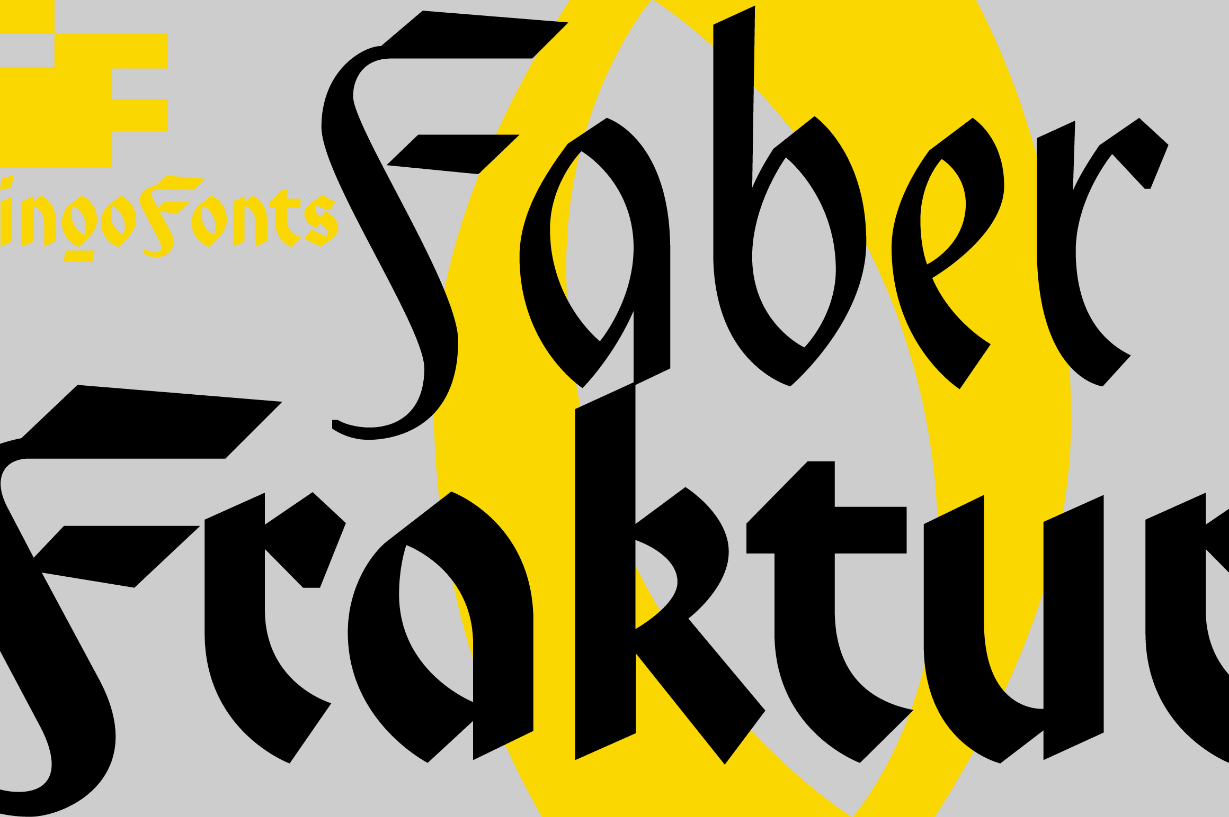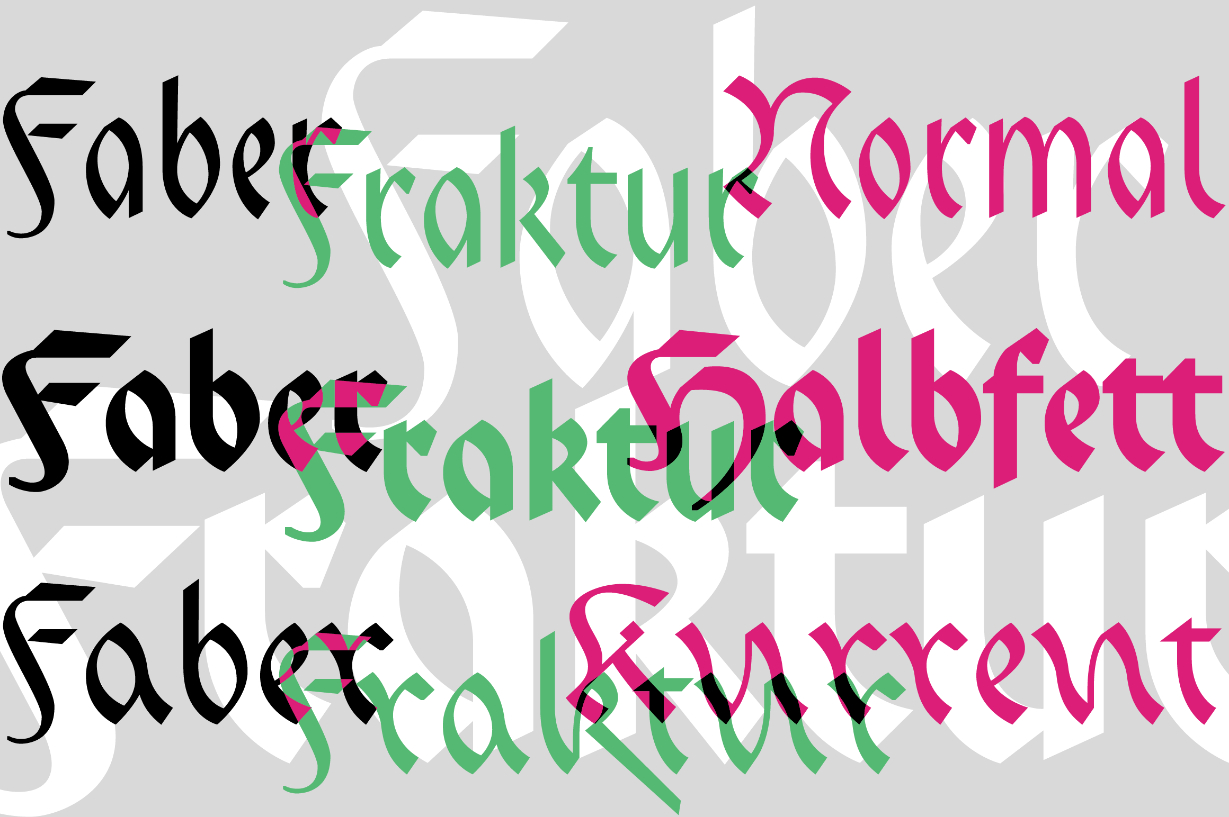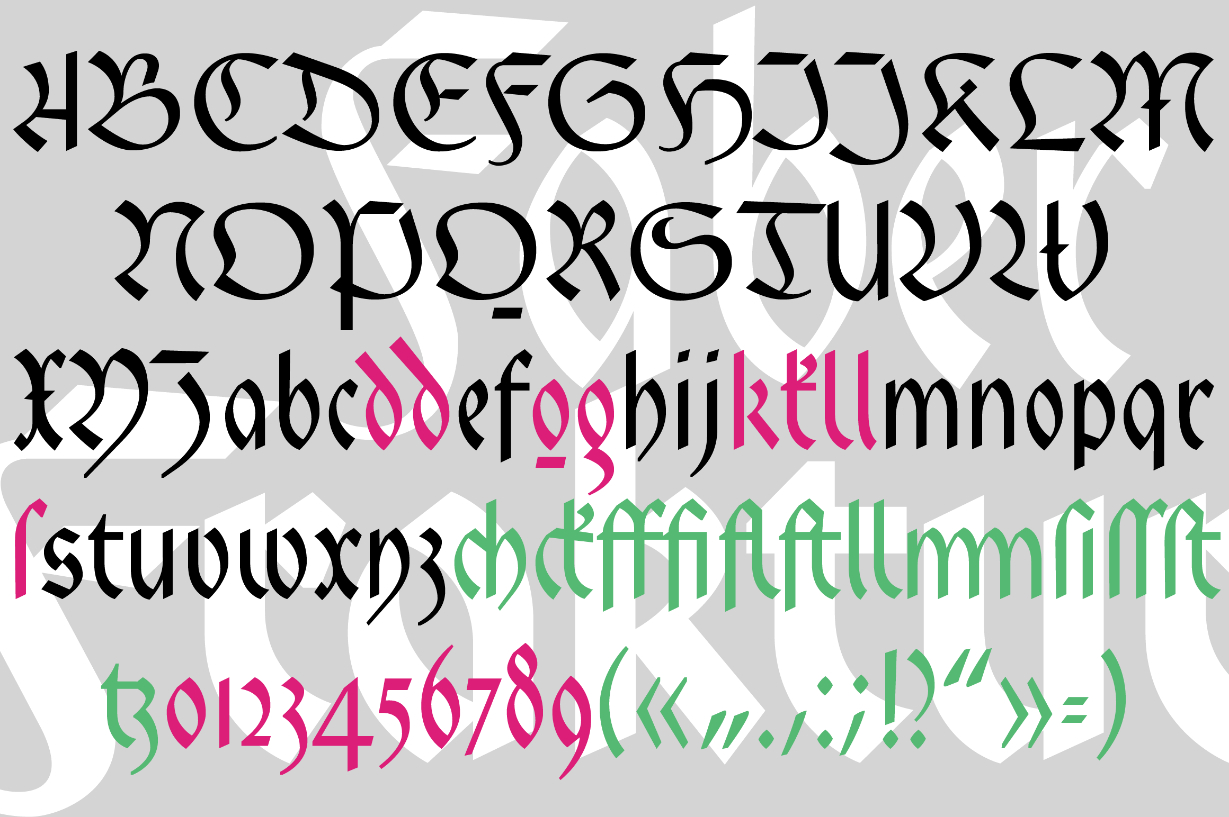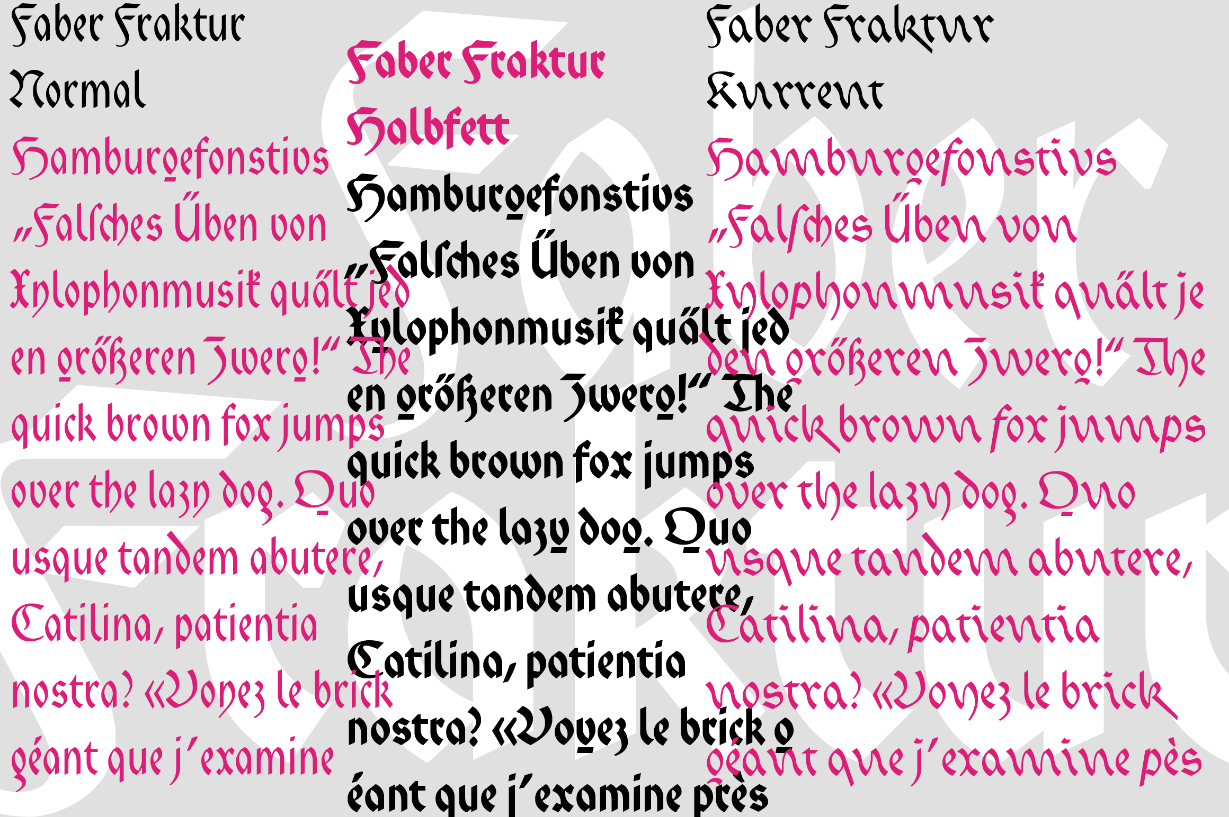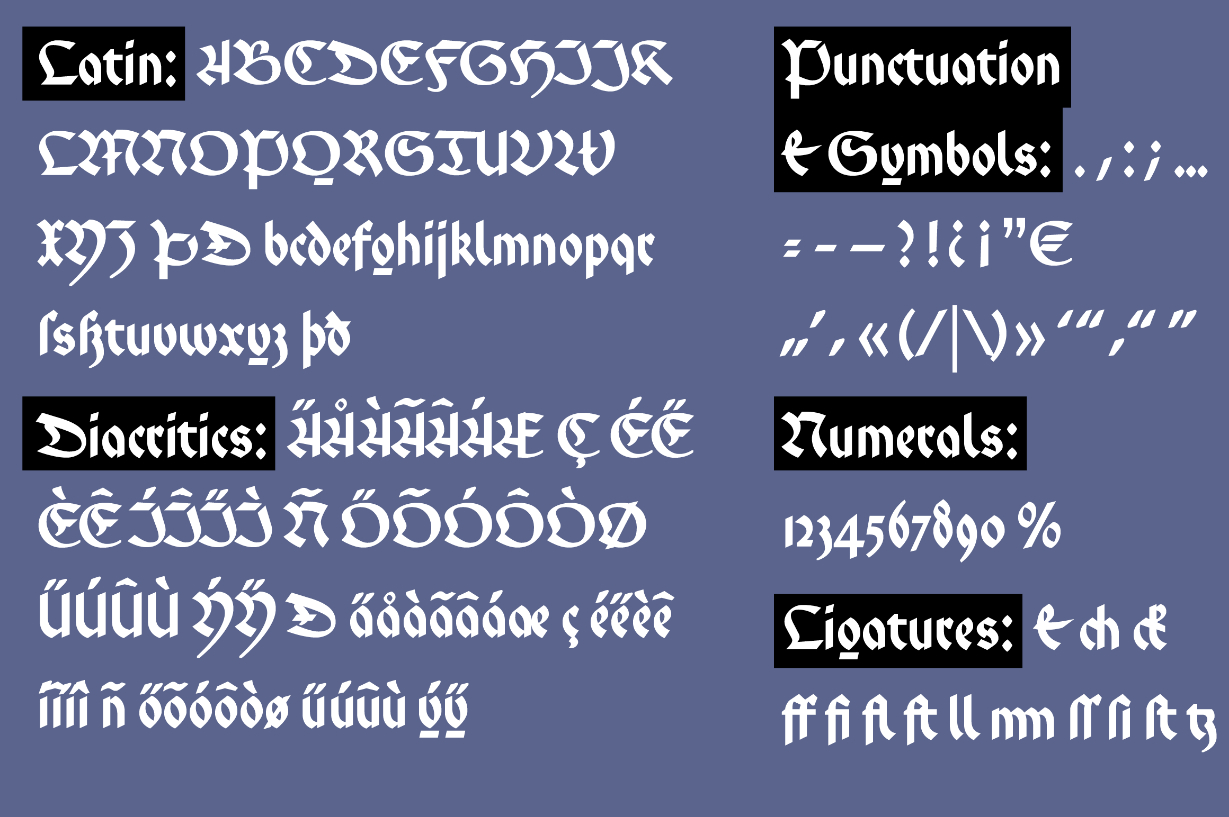
Faber Fraktur Font
About Faber Fraktur Font
Faber Fraktur is a bold blackletter font with a unique feel. It comes in a great variety of versions, and will turn any design idea into an eye catcher!